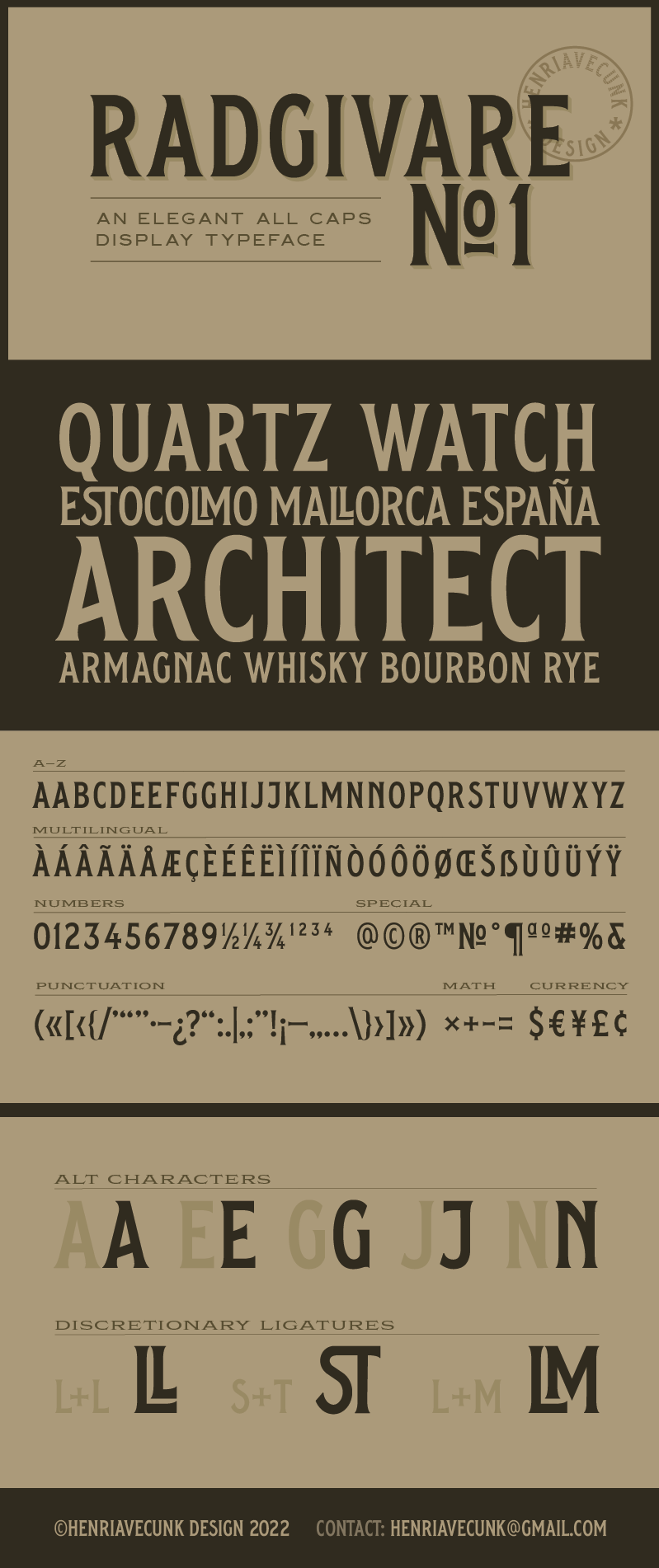
Font name: | Radgivare No 1 |
Author: | HENRIavecunK |
Note by HENRIavecunK | |
Radgivare No. 1 is an elegant and striking all caps typeface in a condensed style created by HENRIavecunK. The font Radgivare No. 1 supports major languages like English, French, German, Italian, Spanish and Portuguese and 40+ medium or minor languages based on the latin alphabet. Buy the commercial font at https://henriavecunk.gumroad.com/l/radgivare_no_1 Have fun! |